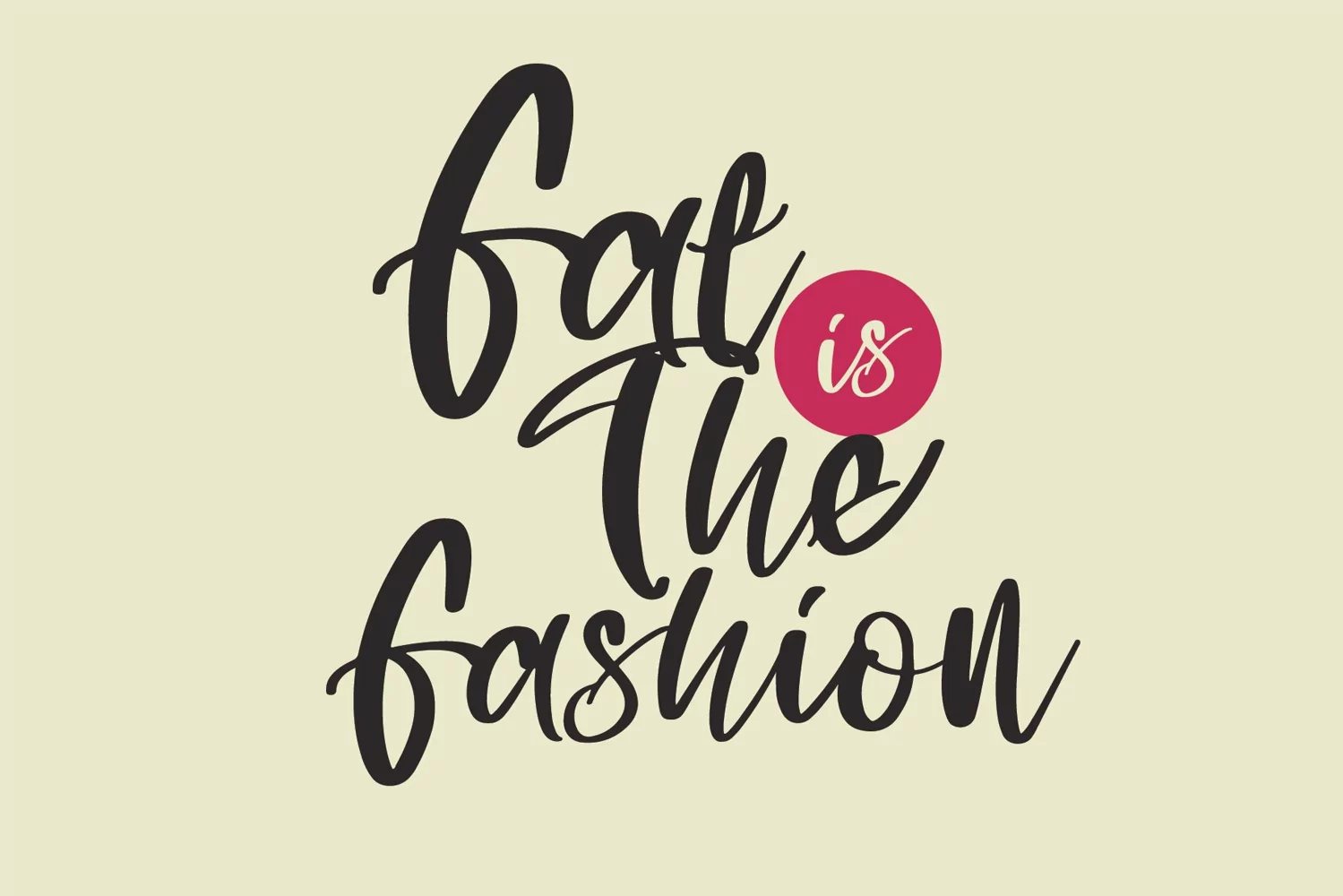
Packos Font
This pair was inspired by the lettering qoutes poster design that i saw on some coffee shop, It was crafted by hand specially to add natural handmade feeling in its brand identity than i make it clean with pentool.
Packos font has 201 character set included Packos Font is very good looking in logo, labels, product packaging, invitations, advertising and others.